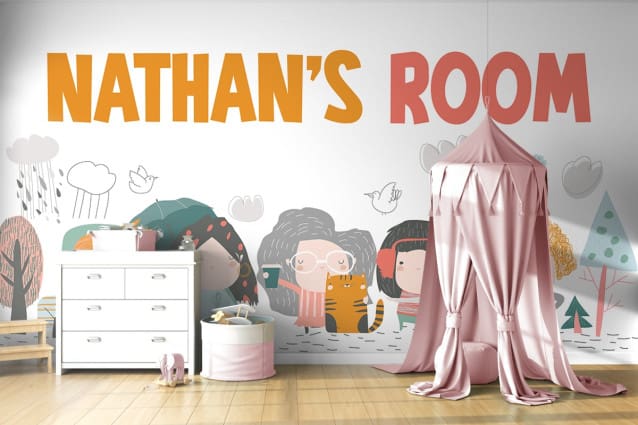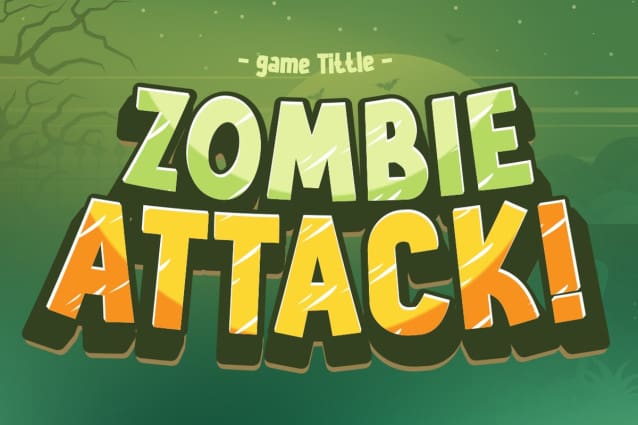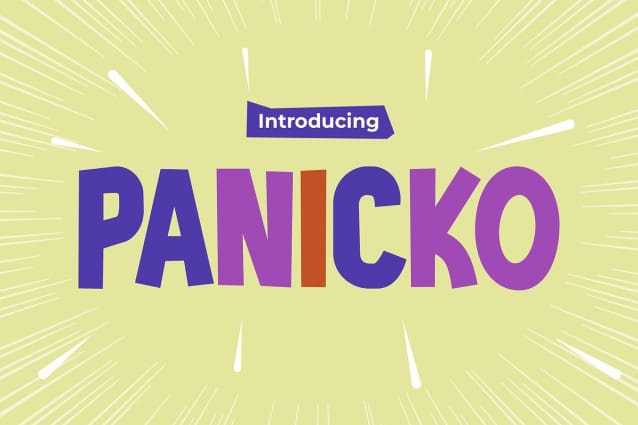
Panicko Playful Font
Panicko Playful Font is the font that adds a burst of excitement and energy to kids’ games, cartoons, and playful designs. With its dynamic and whimsical appearance, “Panicko” captures the essence of fun and adventure, making it perfect for captivating young audiences. Whether you’re creating characters for an animated series, designing game interfaces, or crafting posters for a children’s event, this font infuses every letter with a sense of playfulness and excitement. Each character is carefully crafted to resemble playful doodles, adding a charming and animated touch to your projects. Let “Panicko” be your go-to font for sparking creativity and bringing joy to kids everywhere.
Step into a world of animated fun and excitement with “Panicko Playful ,” the font that turns every project into a thrilling adventure. Inspired by the colorful and vibrant worlds of kids’ games and cartoons, “Panicko Playful ” brings characters to life with its bold and dynamic style. Perfect for game titles, comic book dialogue, and cartoon branding, this font adds a sense of whimsy and charm that kids adore. From adventurous slogans to comical captions, “Panicko” injects a dose of excitement into every design element. Embrace the playful spirit of childhood and let “Panicko” be your partner in creating unforgettable experiences for kids of all ages.